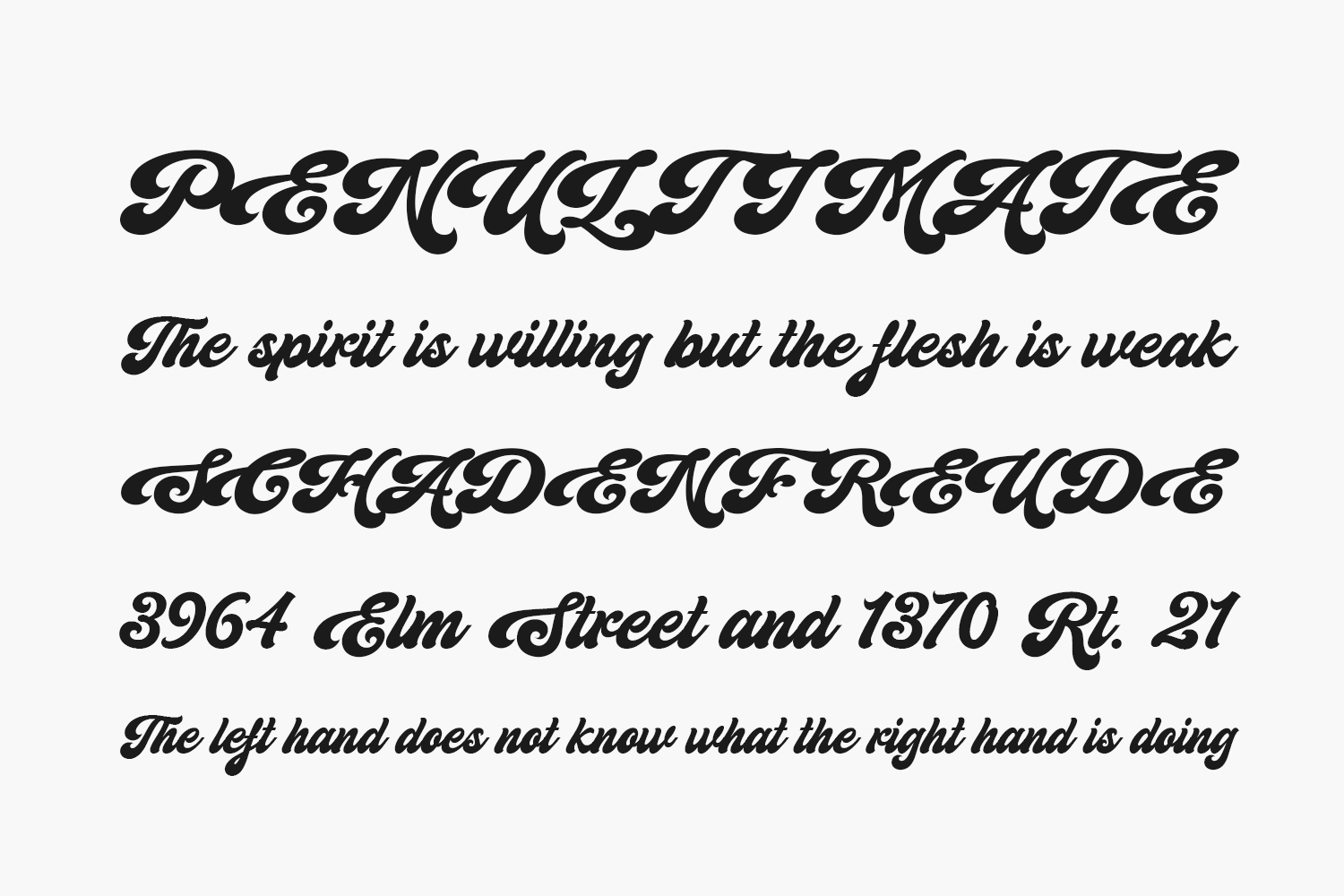
Aimeriga Free Font, a vintage script font, boasts bold features in its body – ideal for branding in the realms of food, fashion, or any project requiring a retro vibe. With its laid-back and casual feel, this font seamlessly integrates into various layouts, catering to your design needs effortlessly. Elevate your creative projects with the distinctive charm of Aimeriga. Download the font for free if you need it for personal use or purchase the full version for commercial use.